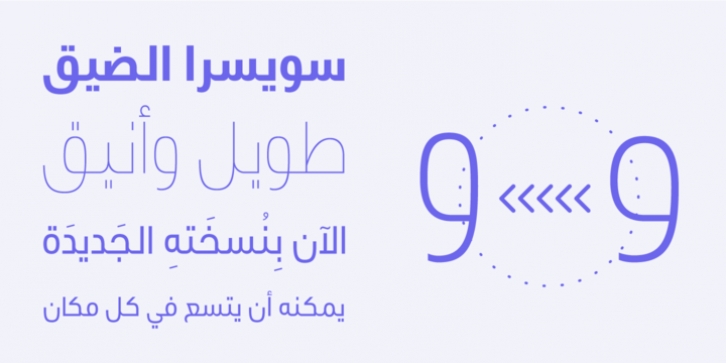
Following the great success of Swissra, the condensed cut was designed on the same principles of Swiss graphic design. Originally Swissra was designed to create a neutral and carefully crafted Arabic font family that can be used on many different applications. Now it creates even more possibilities to help designers in applications such as signage and editorial design where the condensed cut is needed.